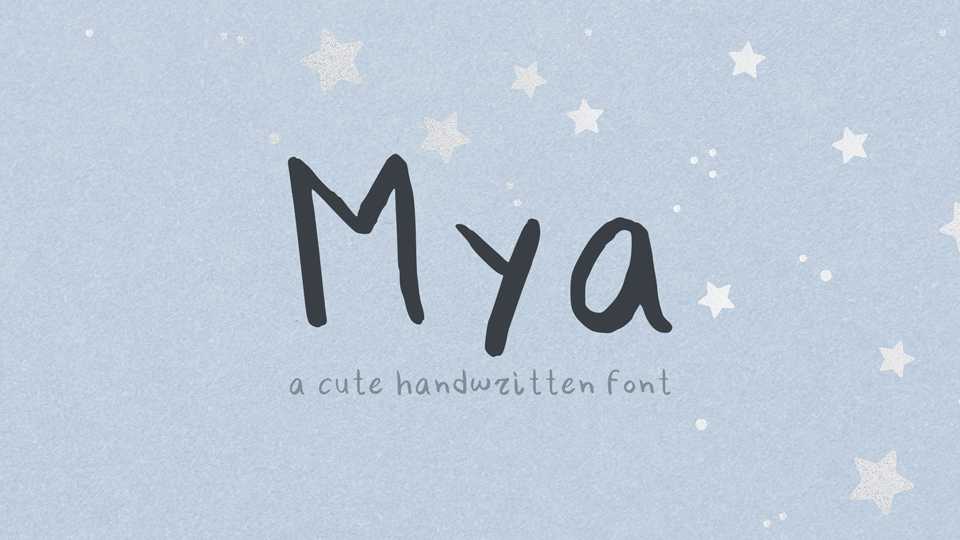
Download Mya font, a simple and cute handwritten typeface. Mya is great for notes, quotes, cards, crafts and other projects that require a personal touch.
Designer: hellosweetaura